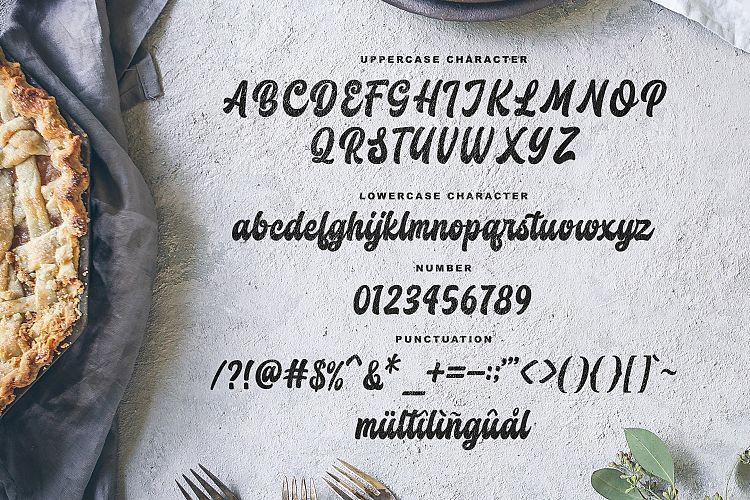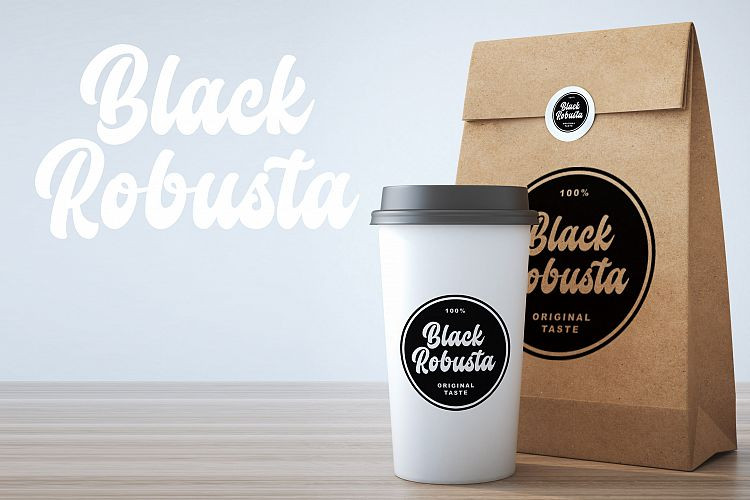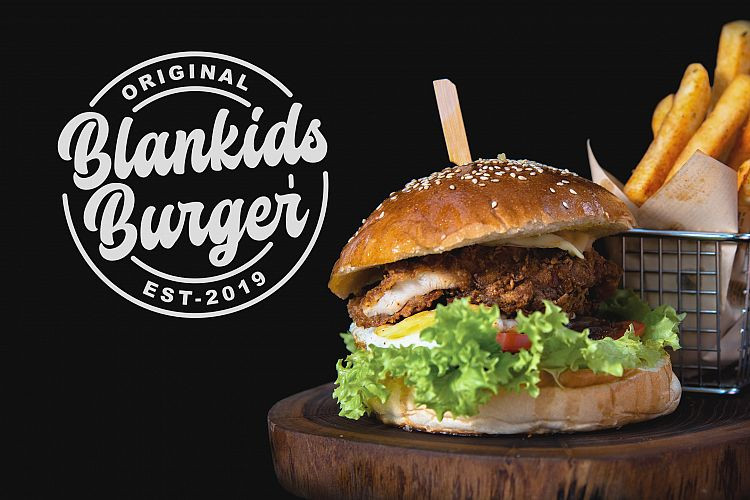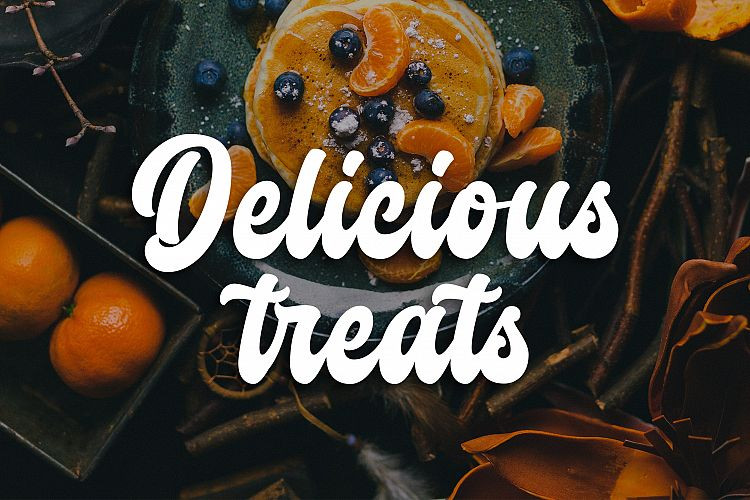
Butchery Script Font
Hello! is a unique thick script font that has funny and feminine properties. This font is perfect for businesses that are close to women such as weddings. If you are looking for a bold script suited to your design then it’s here! Introducing Butchery Font. It’s a new retro bold script called Butchery. Butchery inspired by food posters, food menus and food packaging. Butchery good for logotype, food posters, food menus, food packaging and any more.